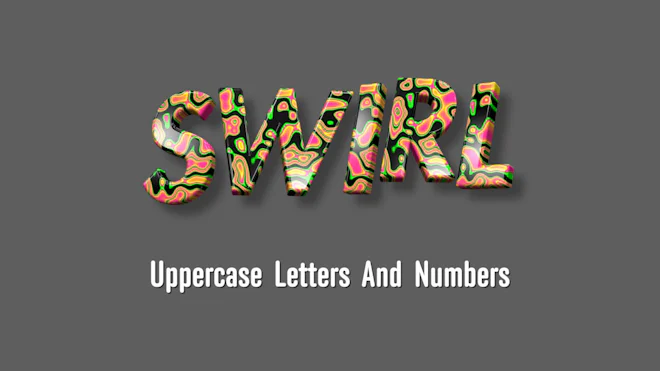
Pack Of 36 Floating And Spinning Swirl Paint Typefaces On Alpha Loop
This stock motion graphics video pack includes 36 clips of swirl paint uppercase letters and numbers on a transparent alpha channel background in a seamless loop.